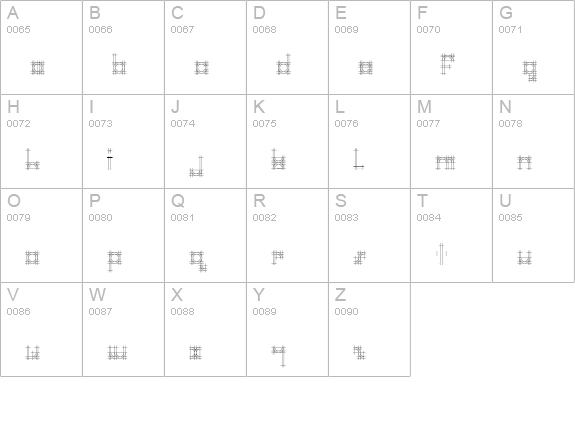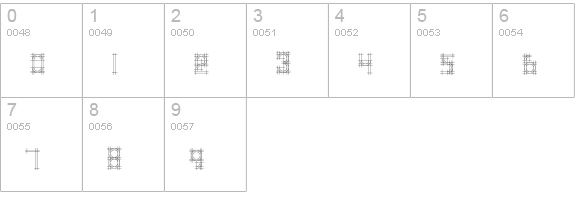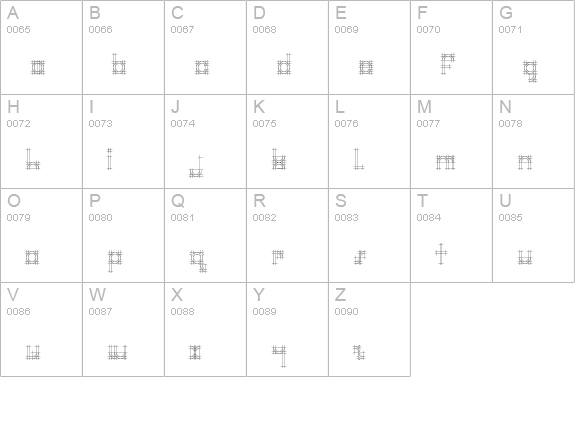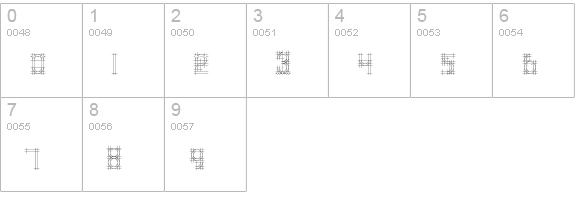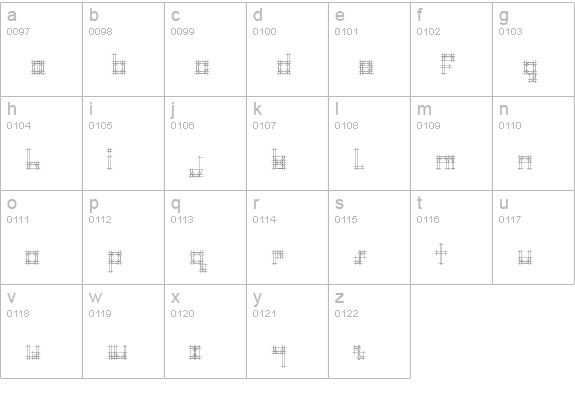
Bauhaus Sketch Font Details
Bauhaus Sketch font is a modern and stylish typeface that perfectly encapsulates the essence of the Bauhaus design movement. With its clean lines and geometric shapes, this font exudes a sense of sophistication and elegance. The unique hand-drawn sketch style adds a touch of creativity and personality to any project. What sets Bauhaus Sketch font apart is not only its aesthetic appeal but also its versatility. Whether you're designing a logo, poster, or website, this font will make your text stand out and grab attention. And the best part? Bauhaus Sketch font is free for personal and commercial use! You can download this amazing font for free at FontsMarket.com and start incorporating it into your designs today. Don't miss out on this fantastic opportunity to elevate your projects with the timeless charm of Bauhaus Sketch font.